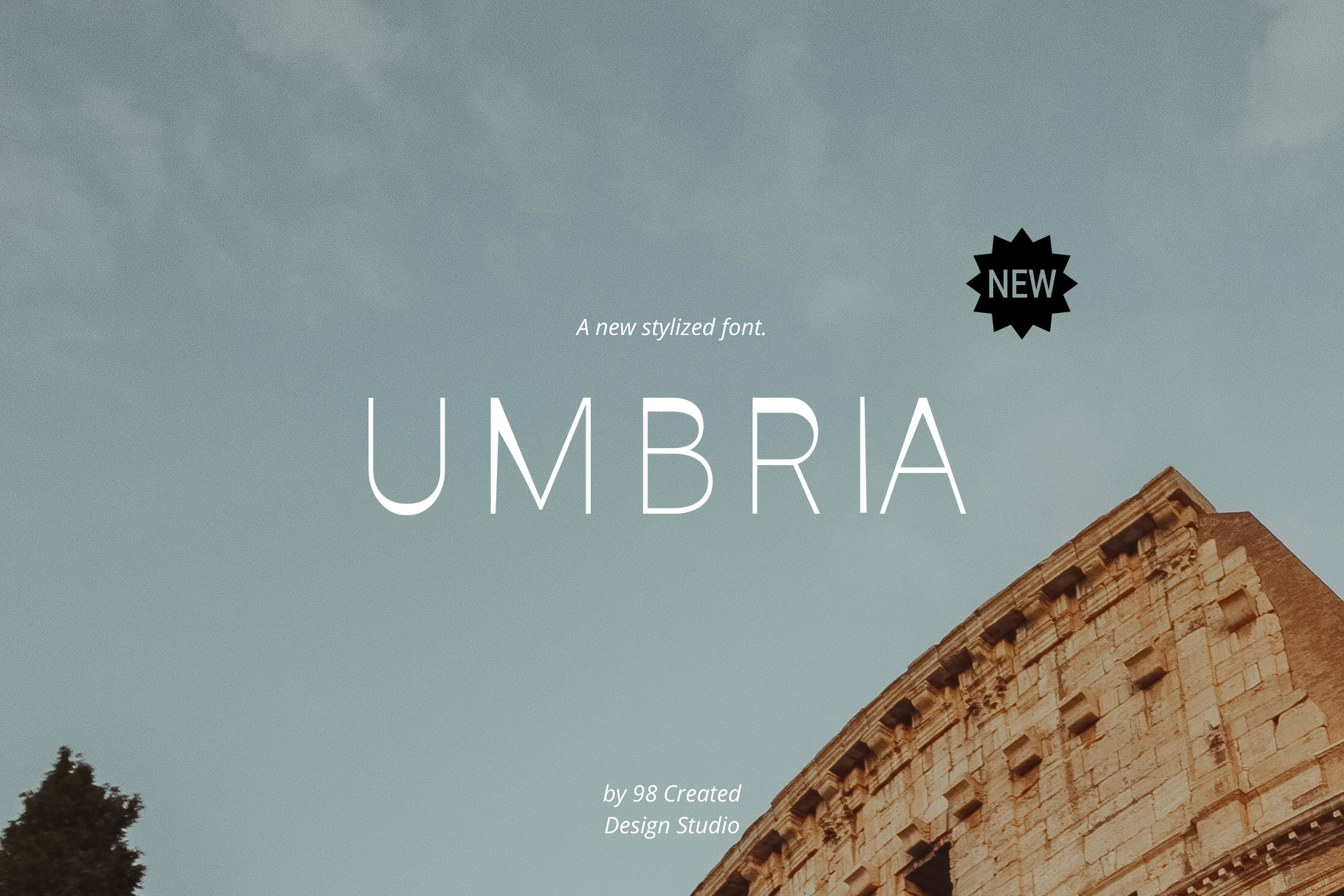
UMBRIA Modern & Distinctive Font
By the 98 Created Design Studio, UMBRIA is a modern, distinctive, stylized font.
With character and movement inspired by the rolling hills of Tuscany, you'll find UMBRIA to be a unique font with a few asymmetrical characteristics. UMBRIA is made for those standing away from the crowd -- it is subtle and minimal, yet incredibly impactful.